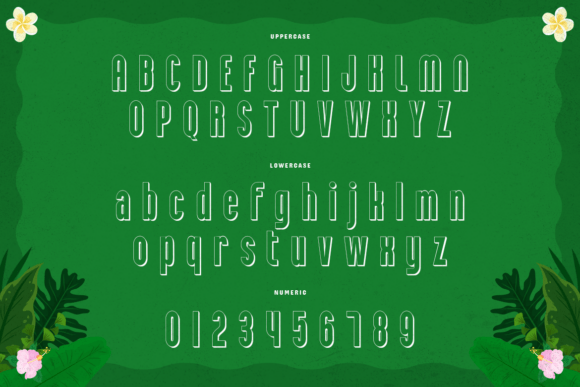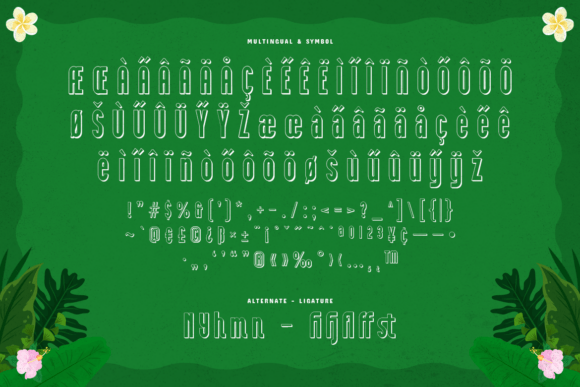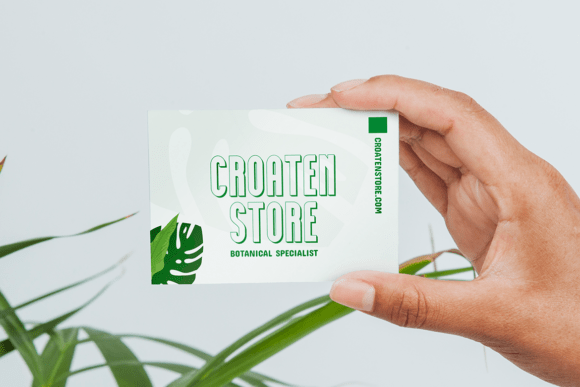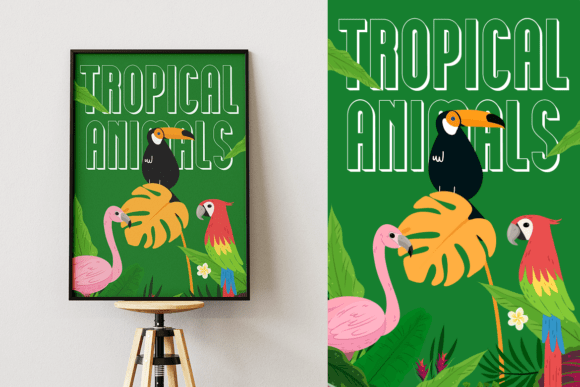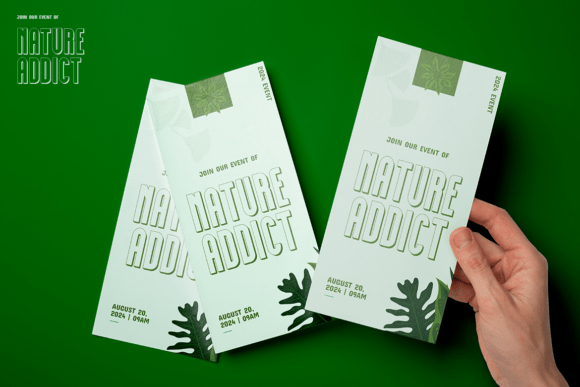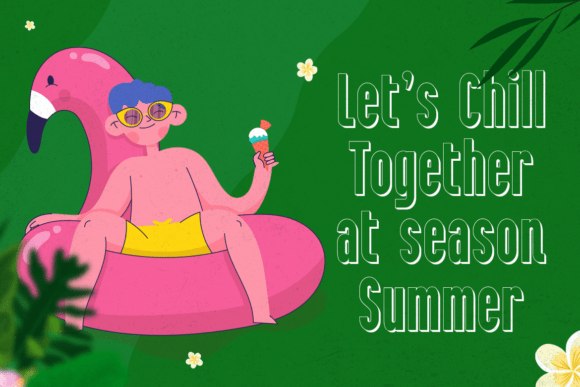
The Perfect Font for a Tropical Getaway
As a designer, have you ever found yourself stuck in a creative rut, searching for the perfect font to transport your audience to a tropical paradise? You know, that feeling when you’re scrolling through fonts, but none of them seem to capture the essence of a summer evening, with palm trees swaying in the breeze and the sound of waves crashing in the distance.
That’s where the Jcallistem Font comes in – a tropical-inspired display font that’s designed to evoke the feeling of a warm, sunny day. With its bold, condensed structure and inline shadow details, this font is perfect for creating eye-catching posters, event graphics, and branding materials that scream “summer vibes.”
As a designer, you know how valuable it is to have a versatile font in your arsenal that can help you bring your creative vision to life. The Jcallistem Font is just that – a reliable and stylish choice that’s sure to make your designs stand out.
Jcallistem Font Key Features
- Unique Characteristics: Jcallistem Font features a unique blend of modern and traditional design elements, with intricate details and subtle flourishes that add to its visual appeal.
- Font Weight and Style: Jcallistem Font comes in multiple weights and styles, including Light, Regular, Bold, and Italic, allowing users to customize the font to suit their specific design needs.
Jcallistem Font Review
As a designer, I was excited to dive into the Jcallistem Font and see what it had to offer. Here’s my honest review:
- ✨ Unique and modern design aesthetic: The Jcallistem Font has a distinct look that’s perfect for creating eye-catching headlines and titles.
- ✨ Wide range of languages supported: This font is available in multiple languages, making it a great option for designers working on international projects.
- ✨ High-quality rendering: The font renders beautifully at various sizes and resolutions, ensuring that it looks great on both digital and print materials.
- ⚠️ Limited font styles: Compared to other fonts, the Jcallistem Font has a relatively limited selection of font styles, which may limit its versatility.
- ⚠️ Some letters may be difficult to read: Certain letters, such as the ‘k’ and ‘q’, may be tricky to read, especially at smaller font sizes.
Overall, I think the Jcallistem Font is a solid choice for designers looking for a modern and unique font. While it may have some limitations, its strengths make it a great option for certain projects. With a little creativity, designers can work around its limitations and create amazing designs with this font.
Getting the Most Out of Jcallistem Font
To get the most out of the Jcallistem Font, use it in combination with bold and italic styles to create visually appealing headings and titles.
The Jcallistem Font is ideal for:
- Headings and titles in creative projects.